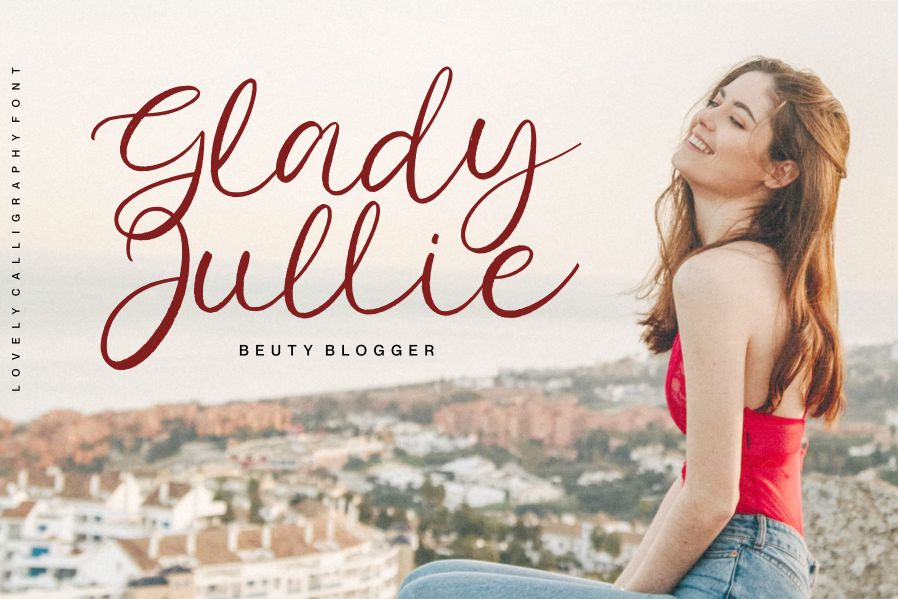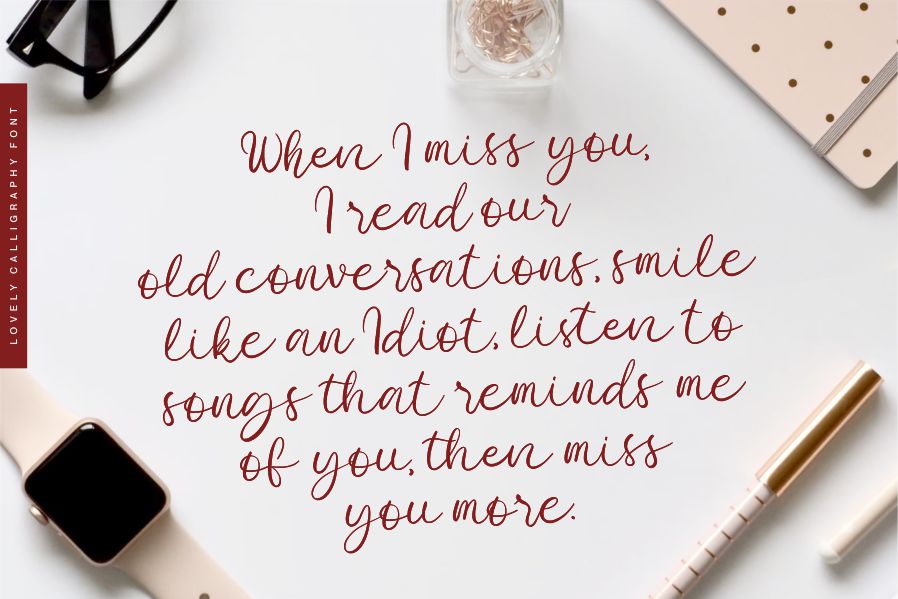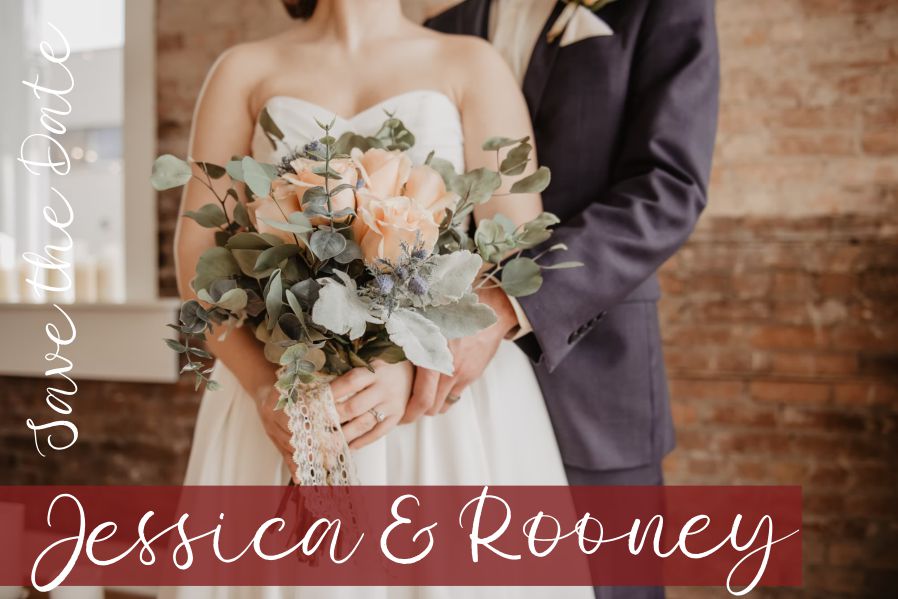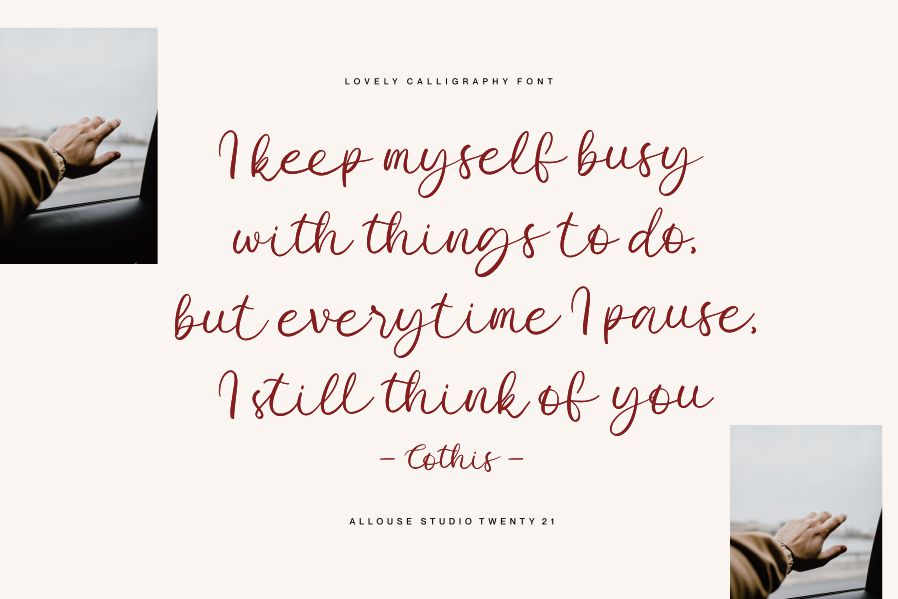
Renitha Font
Renitha Script Font
This is a beautiful light handwritten font with a unique feel and a stunning impact. It will add a luxury spark to any design project that you wish to create!
Allouse.Studio